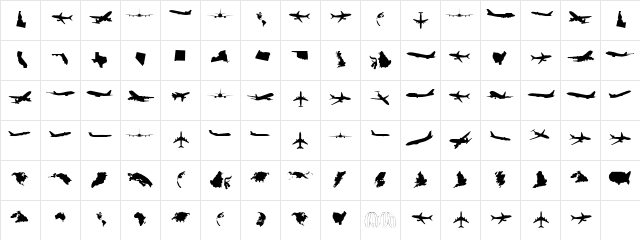
T-Air Regular
| Foundry | Tom Tor |
| Designer | Tom Tor |
Design Context for T-Air Typeface
T-Air is a composed and adaptable typeface that performs quietly and consistently across a wide range of design contexts.